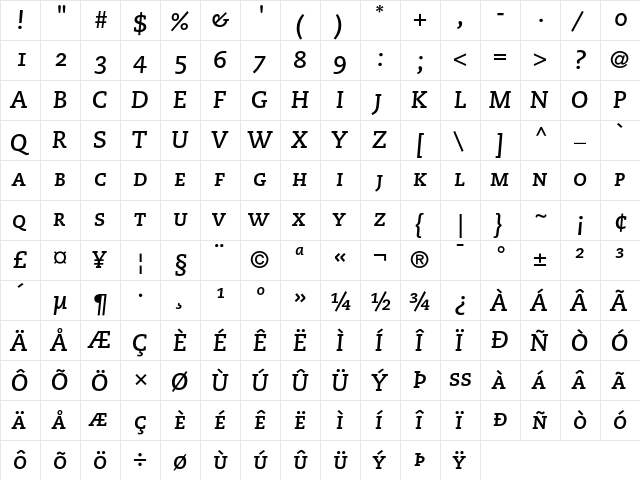
PMN Caecilia 76 Bold Italic Small Caps & Oldstyle Figures Font Preview
Design Context for PMN Caecilia Typeface
PMN Caecilia carries the refined structure of traditional serif typography, with bracketed terminals and considered proportions that communicate credibility and craft. The dynamic lean of this cut emphasises speed and emphasis in any layout. The heavy weight commands attention and anchors typographic hierarchies.
Pro Tip: Use PMN Caecilia for editorial body copy and considered headline work. Pair with a neutral sans for UI elements or captions to create a classic hierarchy.